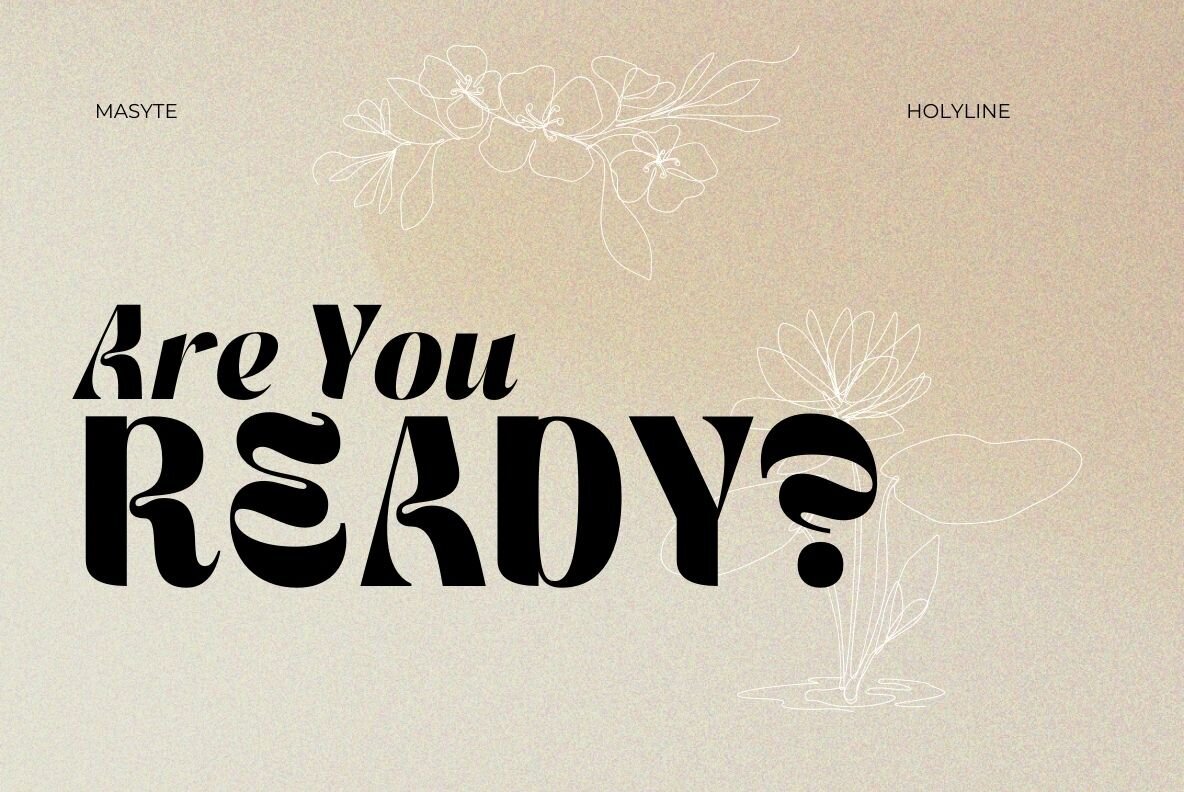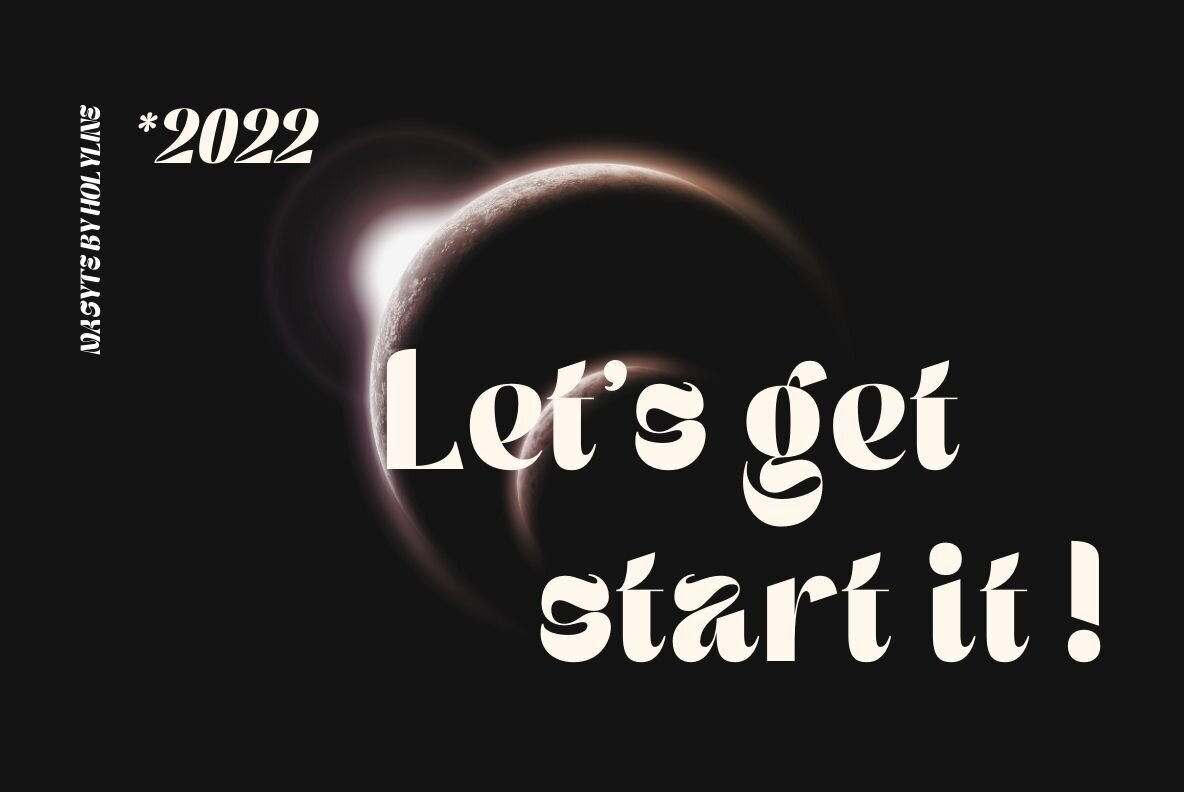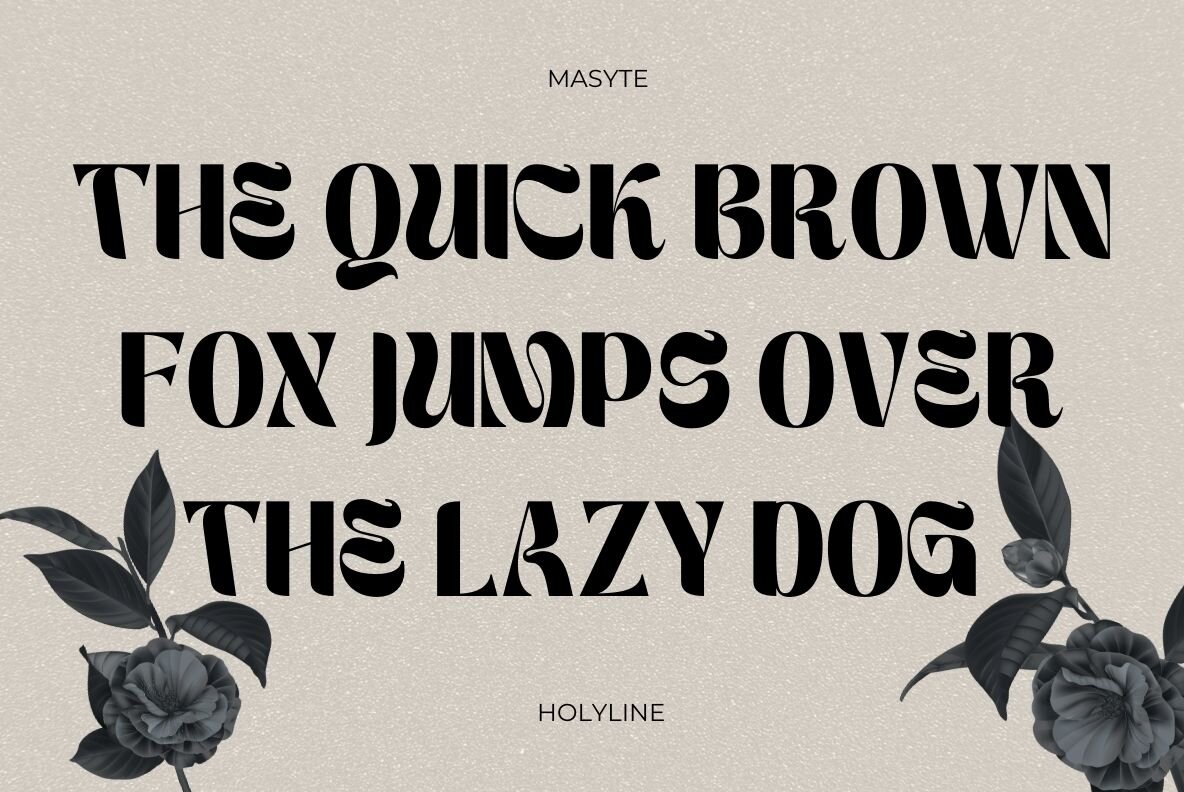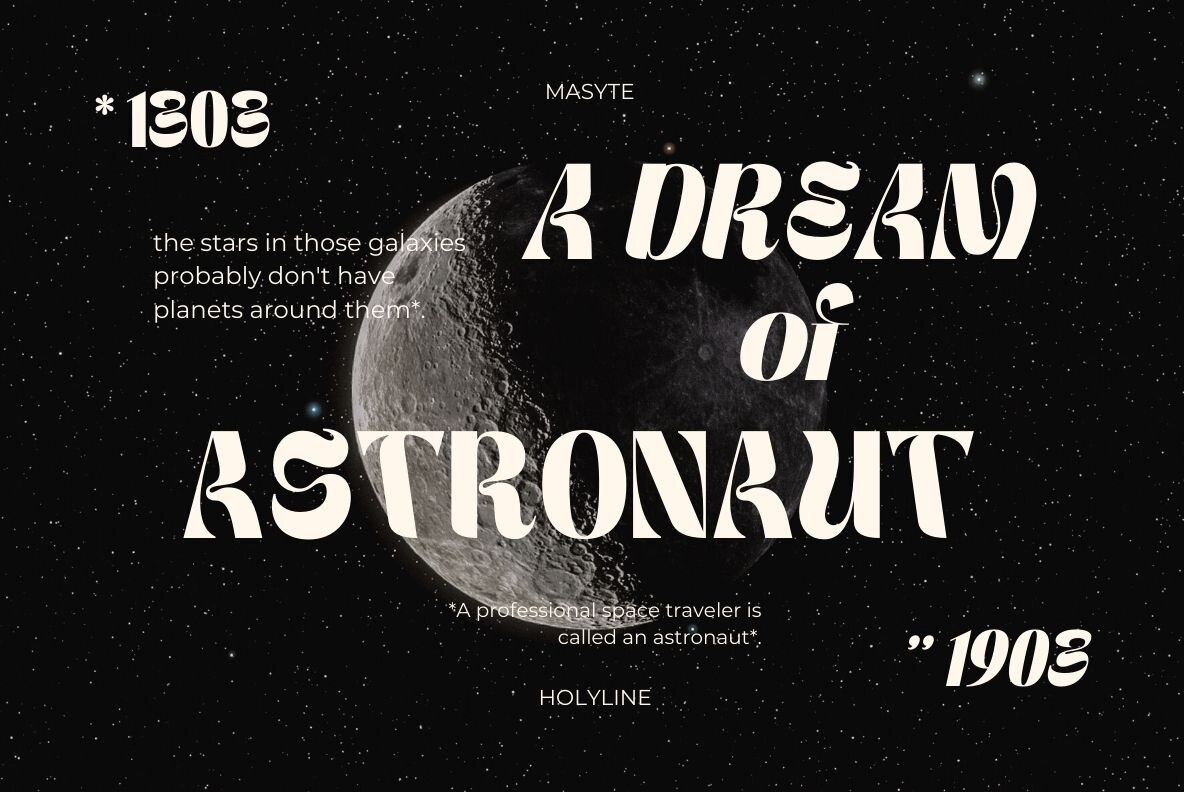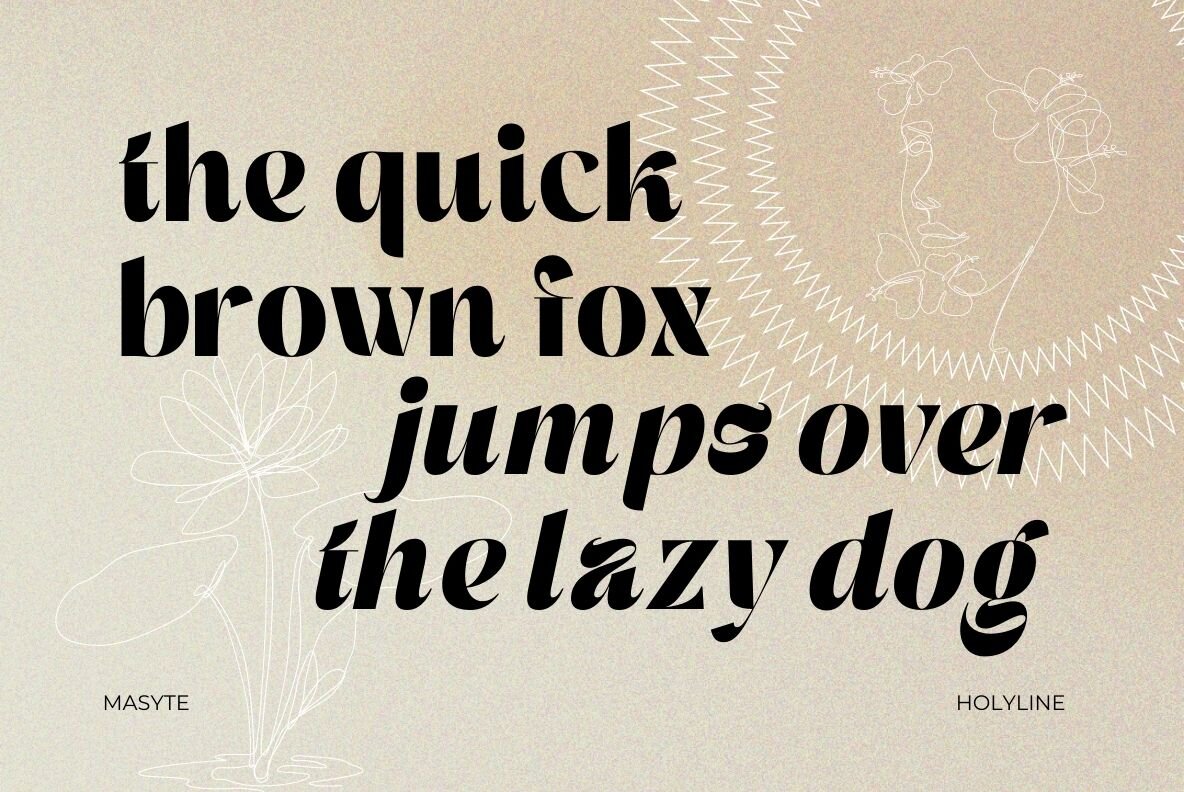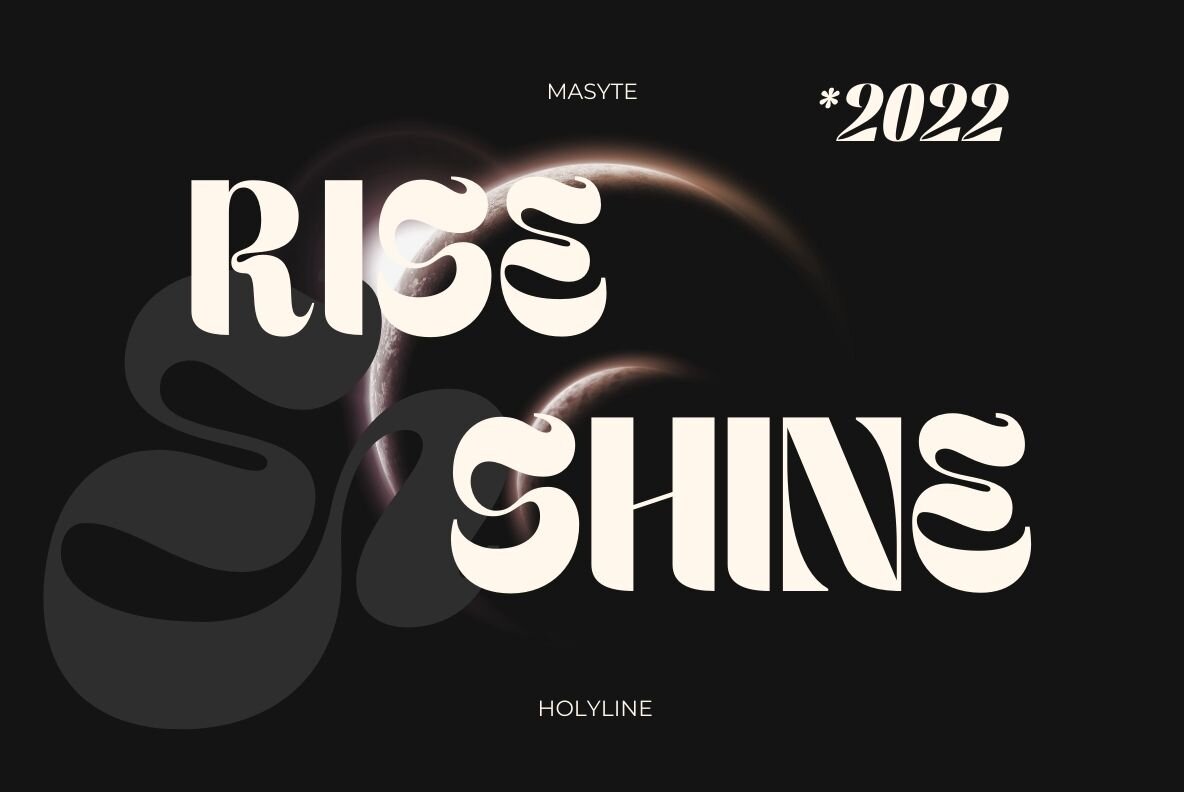
Masyte Font
Masyte offers a refreshing take on sans serif typography, presenting bold and playful shapes. It stands out with its unique style, making it an ideal choice for headlines, custom logos, and creative projects. This display typeface comes in both regular and italic styles, providing flexibility for various design needs.Masyte: Bold Sans Serif for Dynamic Designs